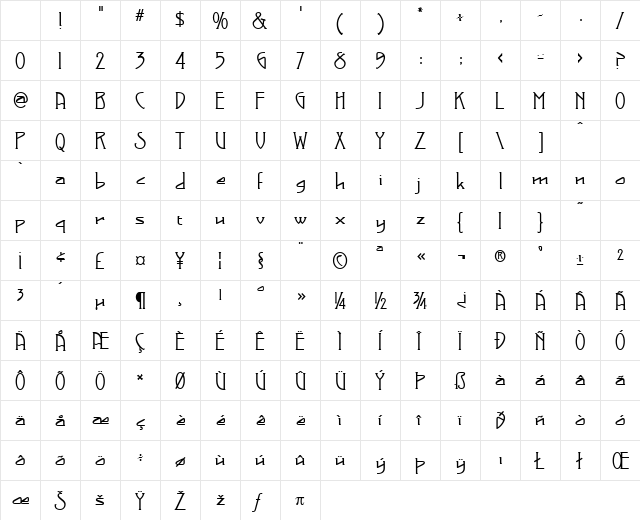
Complete Bonham Regular glyph index. Displaying only characters natively supported by Bonham Regular font.
Bonham is a composed and adaptable typeface that performs quietly and consistently across a wide range of design contexts.